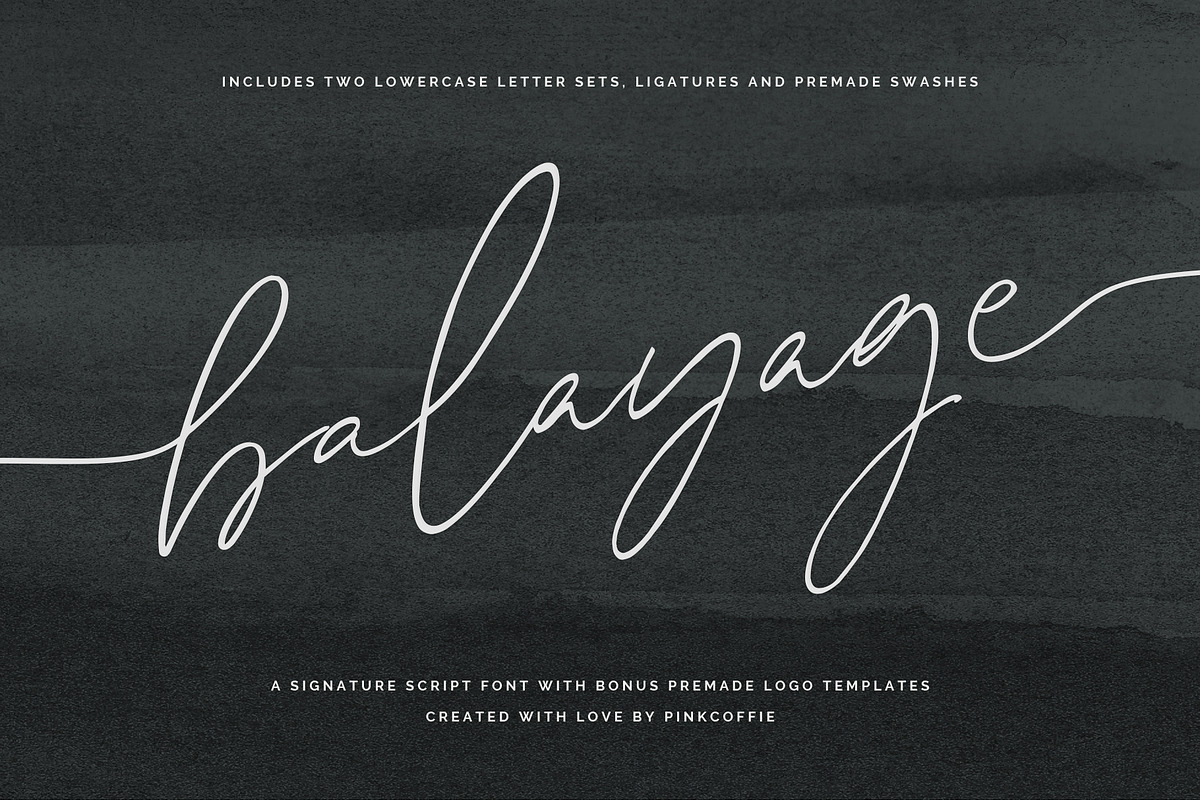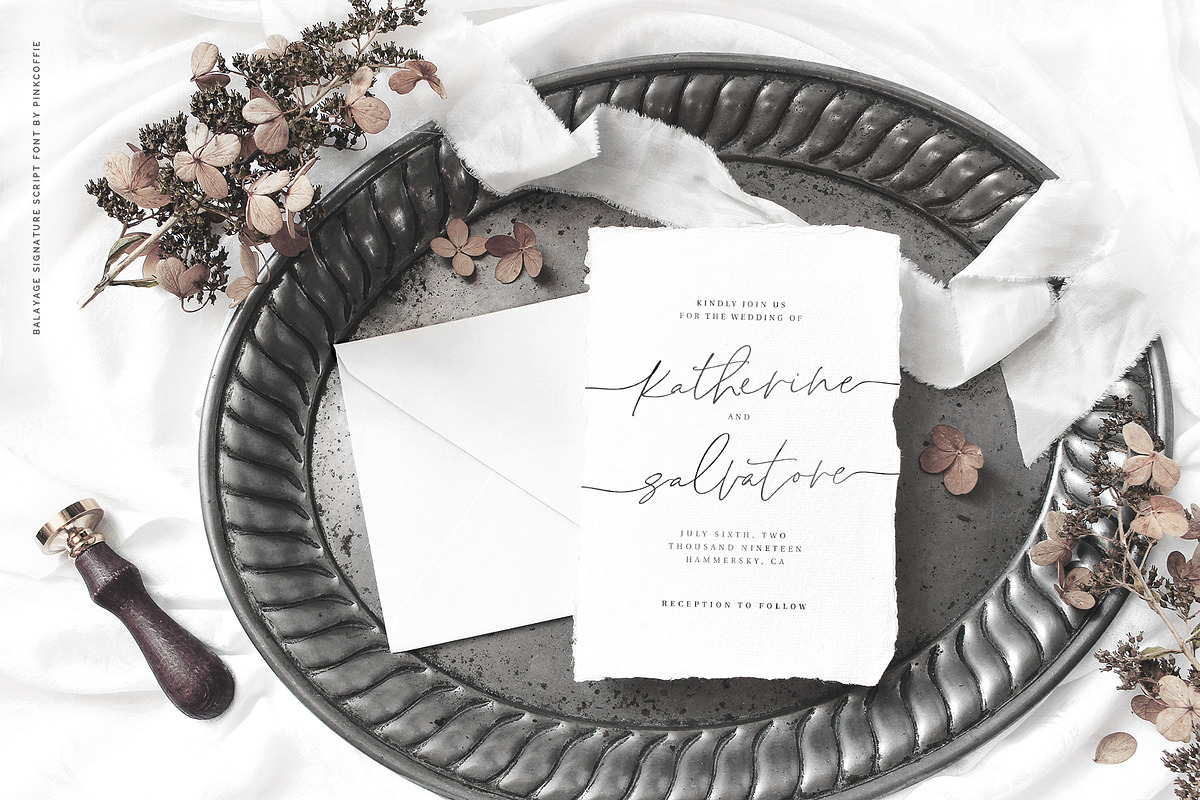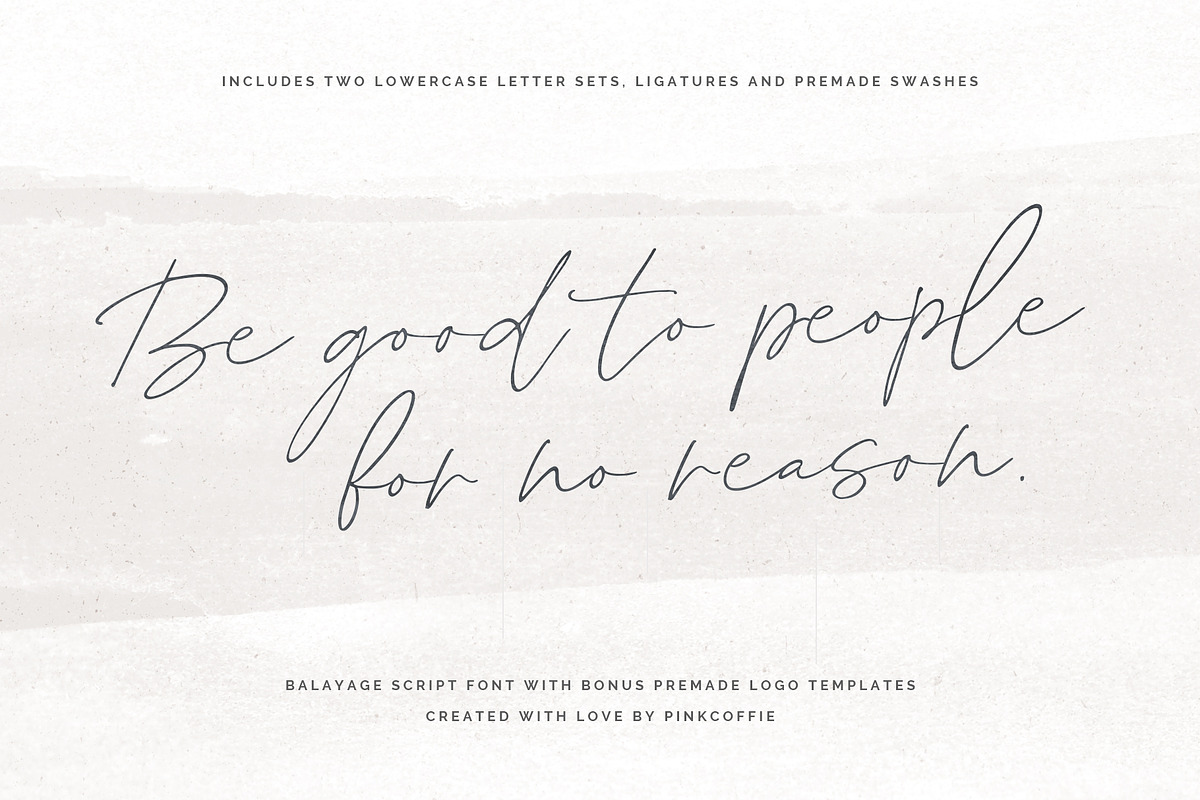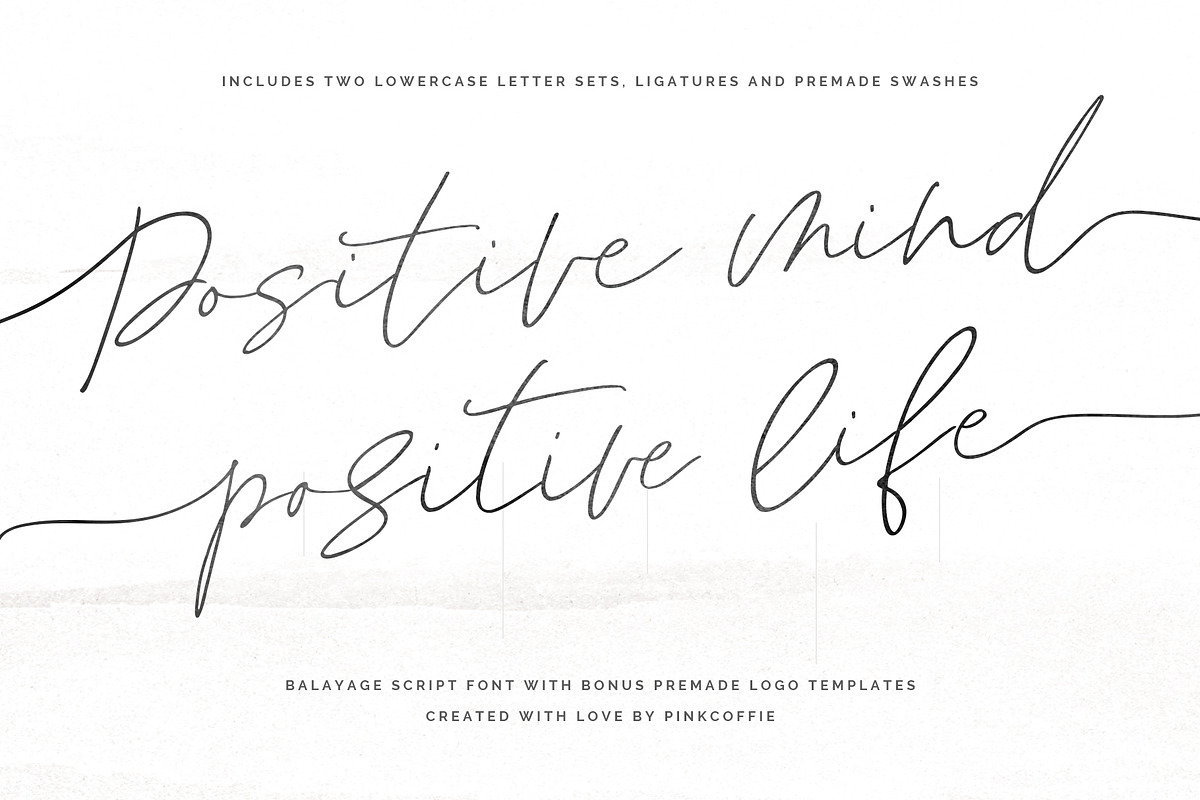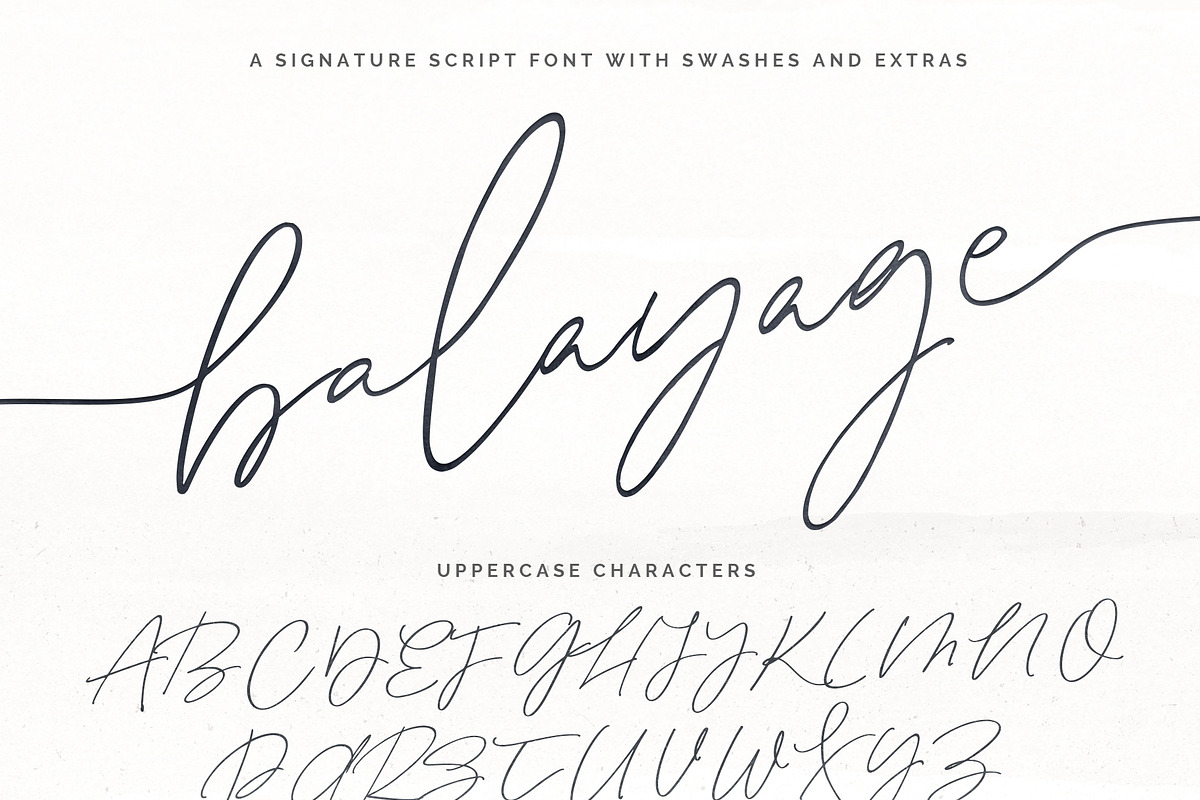
Balayage | Signature Script + Logos
Say hello to Balayage Signature Script, a sleek modern calligraphy signature script that comes with two lowercase stylistic letter sets, premade beginning and ending swashes for uppercase, lowercase and lowercase alternate characters, double-letter ligatures, multilingual support, and 6 bonus premade logo templates. ♥